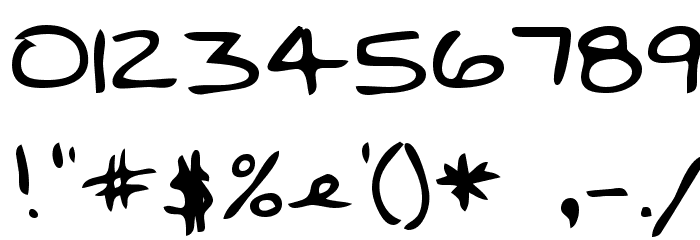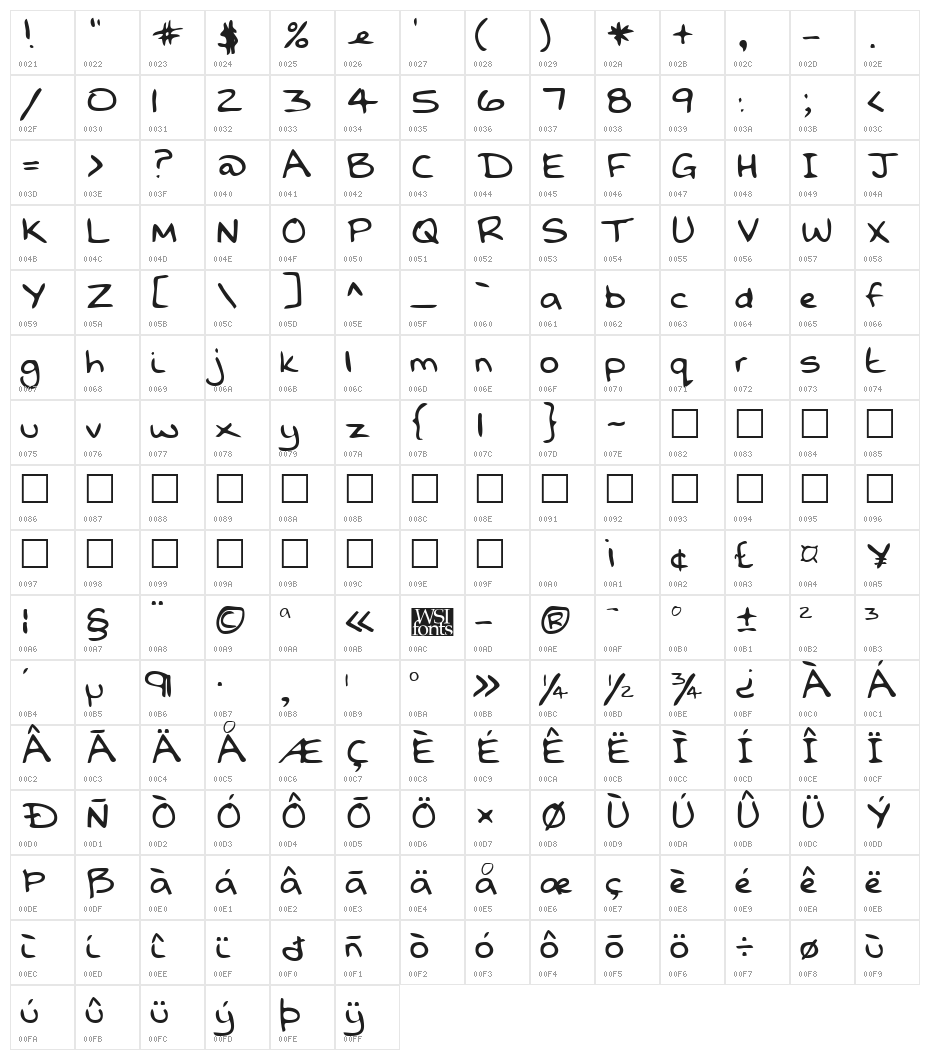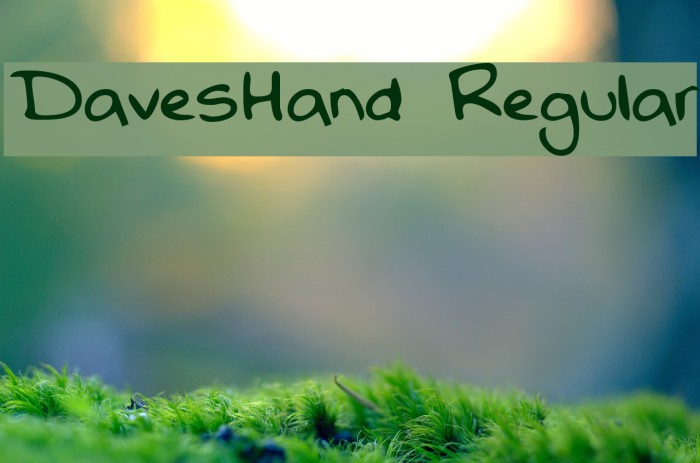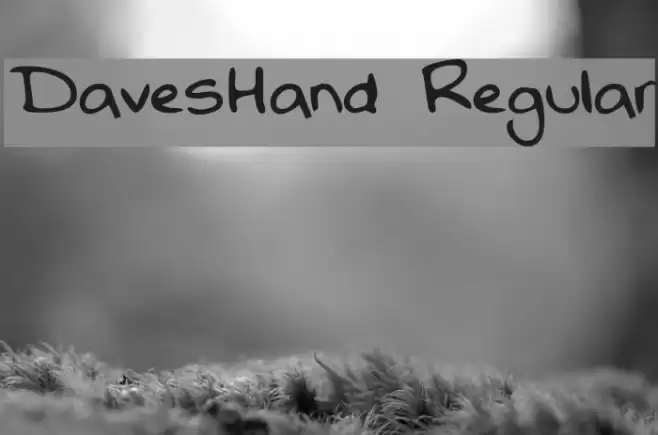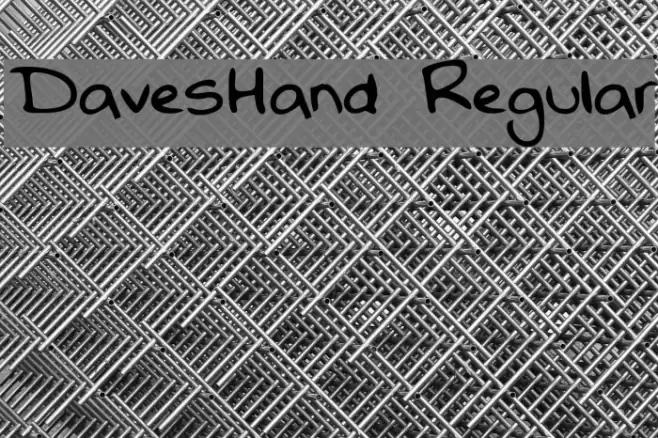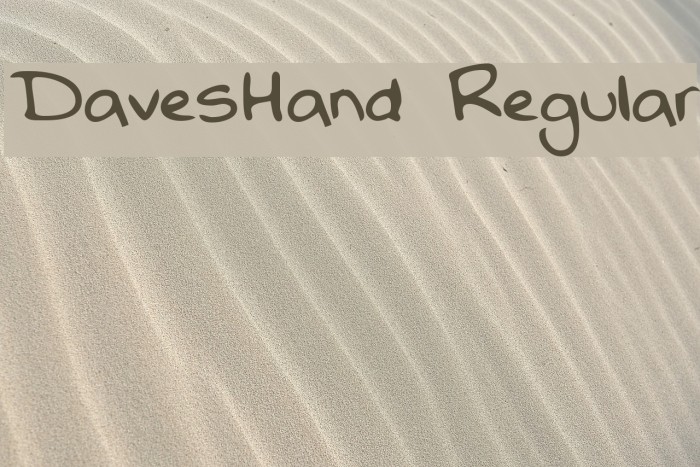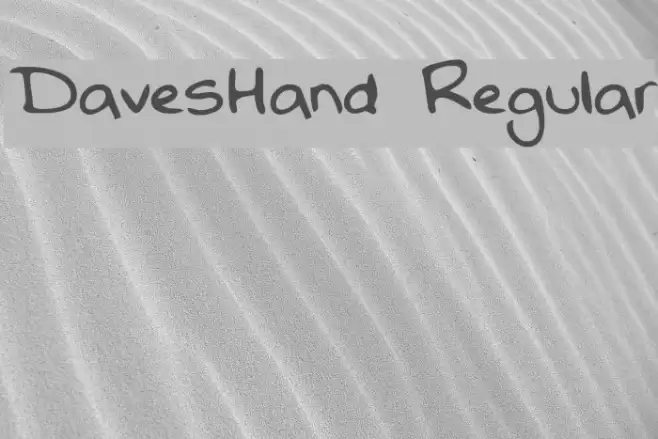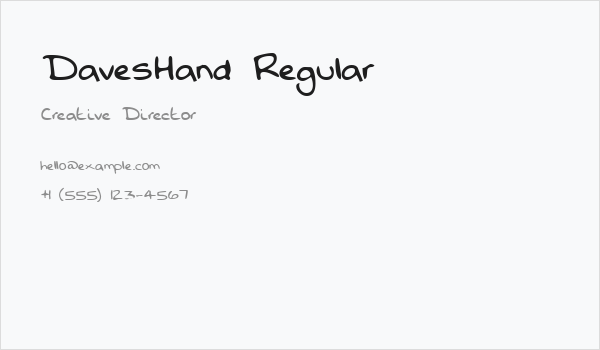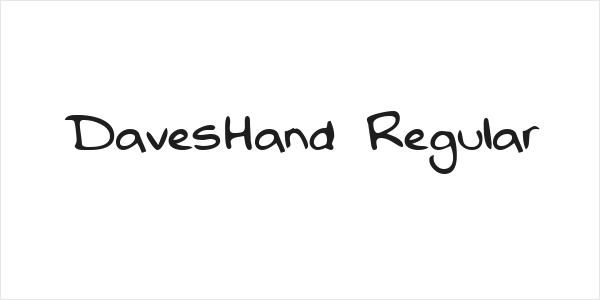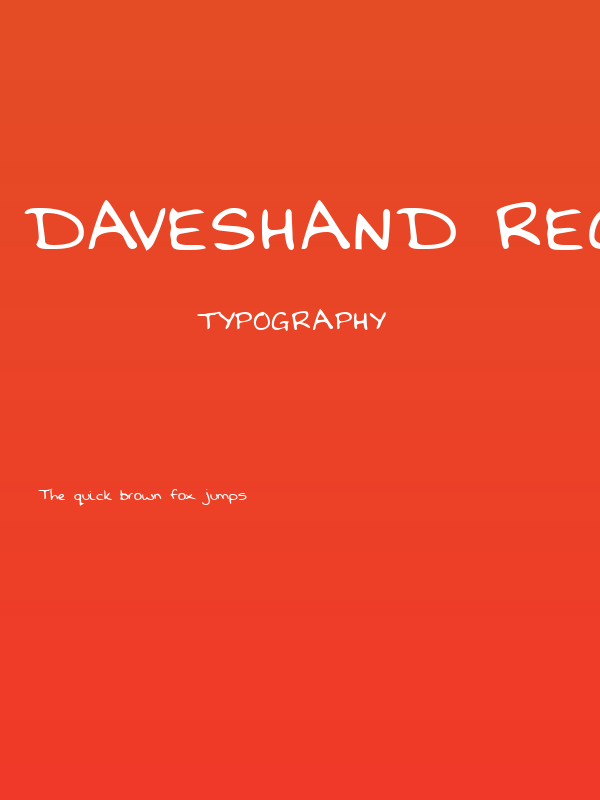
DavesHand Regular Font
DavesHand Regular Description
This font exudes a casual and playful handwritten style, characterized by its smooth, flowing lines and slightly irregular shapes. The letters have a natural, organic feel, as if they were penned by hand with a marker or brush. The uppercase and lowercase letters maintain a consistent style, with rounded edges and a slight slant, adding to the informal aesthetic. The numerals and special characters follow the same design principles, ensuring a cohesive look across all glyphs. This font is perfect for projects that require a personal touch, conveying warmth and approachability.
Overall StyleCasual, Playful
Use CaseHeadlines, Logos, Informal Text
Proposed ProjectsIdeal for greeting cards, invitations, personal branding, and creative projects that require a warm, approachable feel.